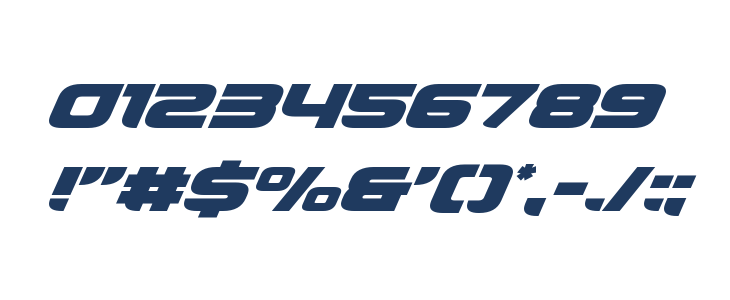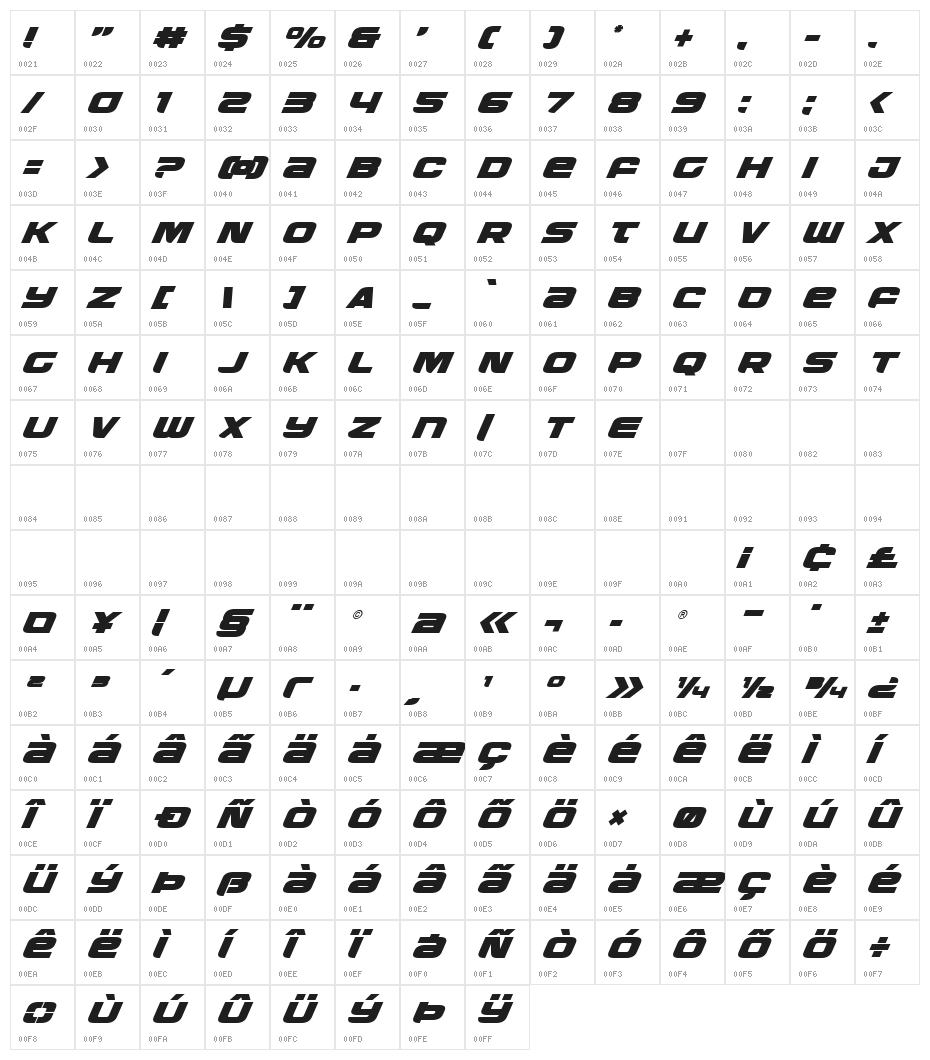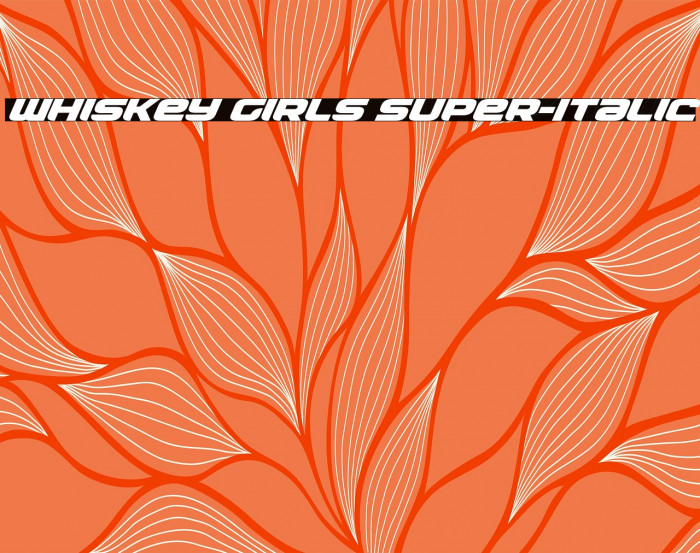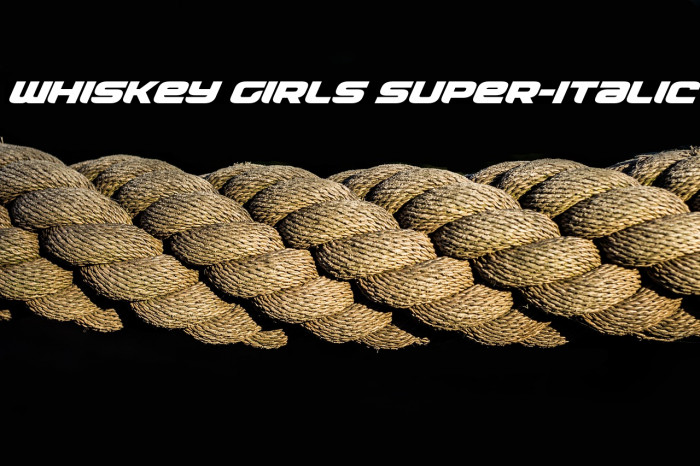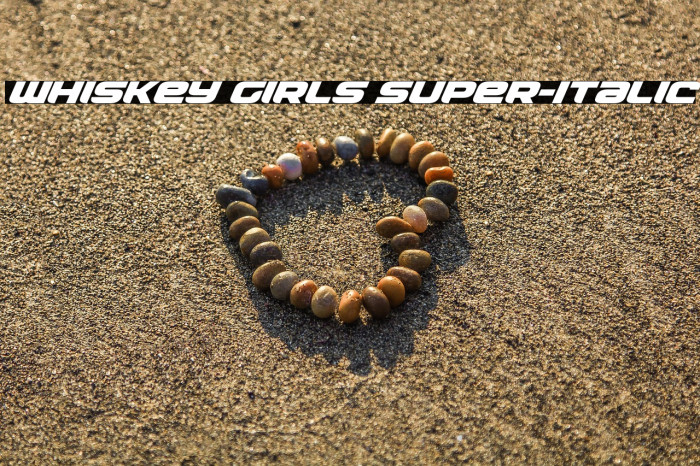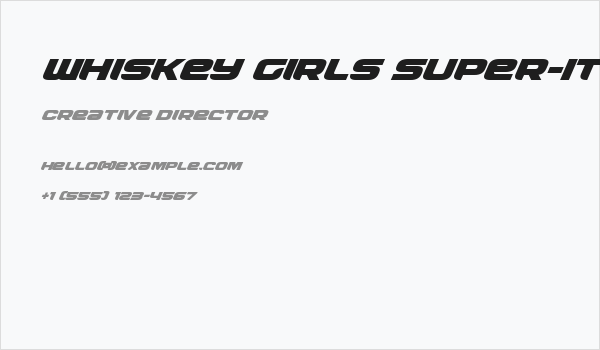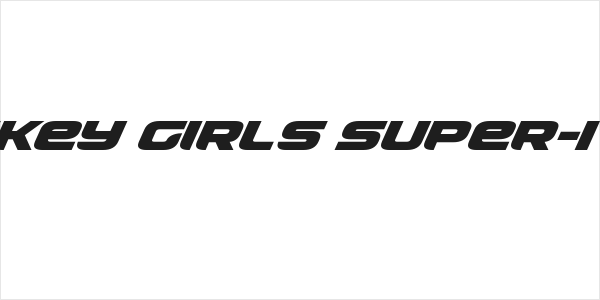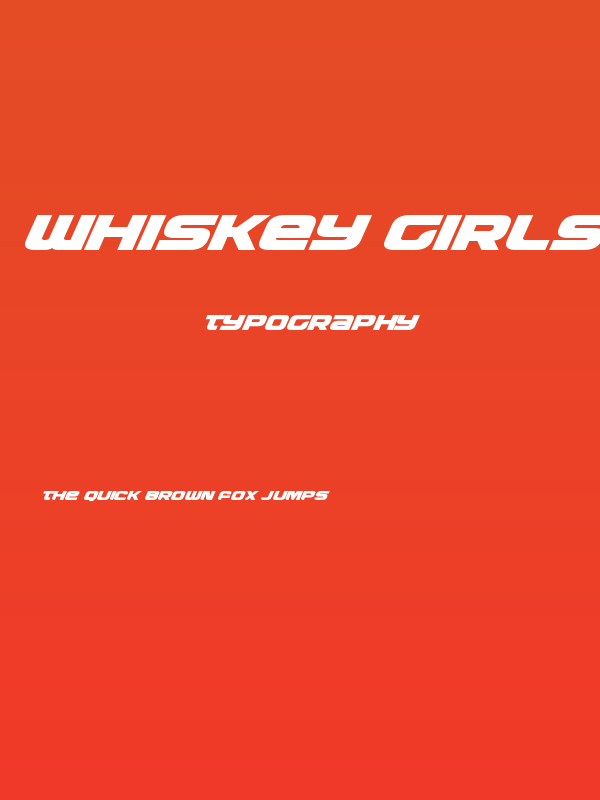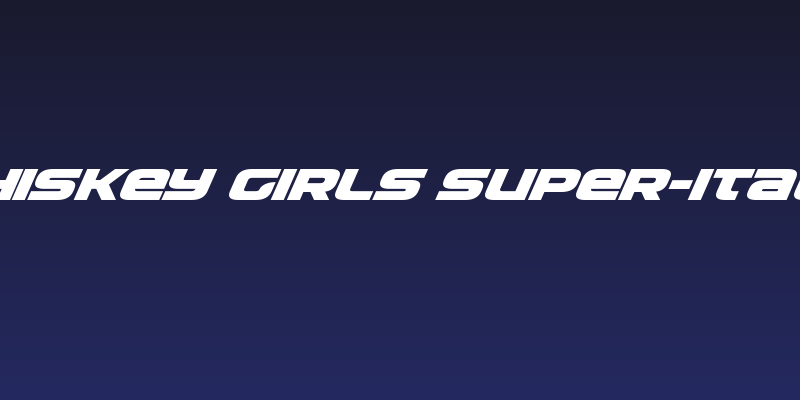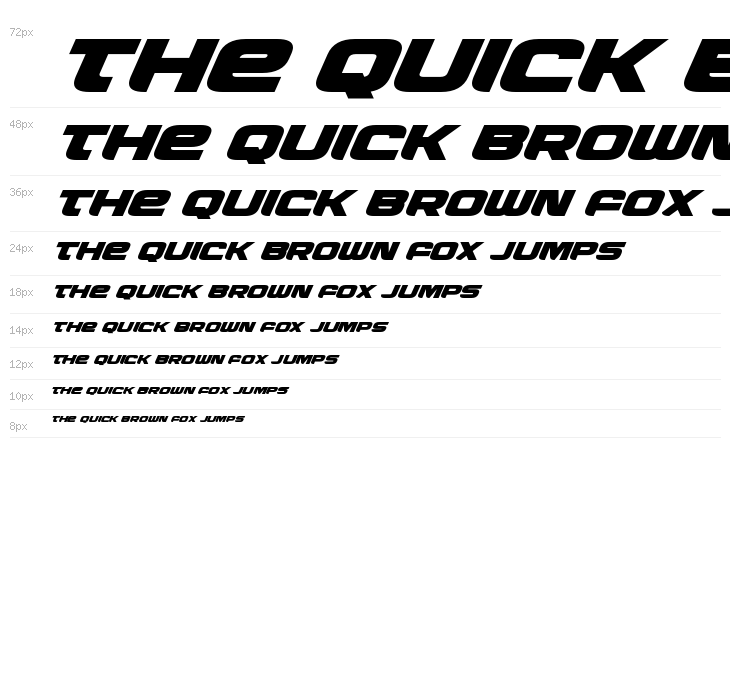
Whiskey Girls Super-Italic Font
Whiskey Girls Super-Italic Description
This font features a bold, italicized style with a modern and dynamic appearance. The characters are slightly slanted, giving a sense of movement and speed. The strokes are thick and consistent, providing a strong visual impact. The design includes sharp angles and smooth curves, creating a futuristic and sleek look. The uppercase and lowercase letters maintain a uniform style, while the numbers and special characters complement the overall aesthetic. This font is ideal for projects that require a bold statement and a contemporary feel.
| Proposed Projects | Ideal for sports branding, automotive designs, tech-related projects, and dynamic advertising. |